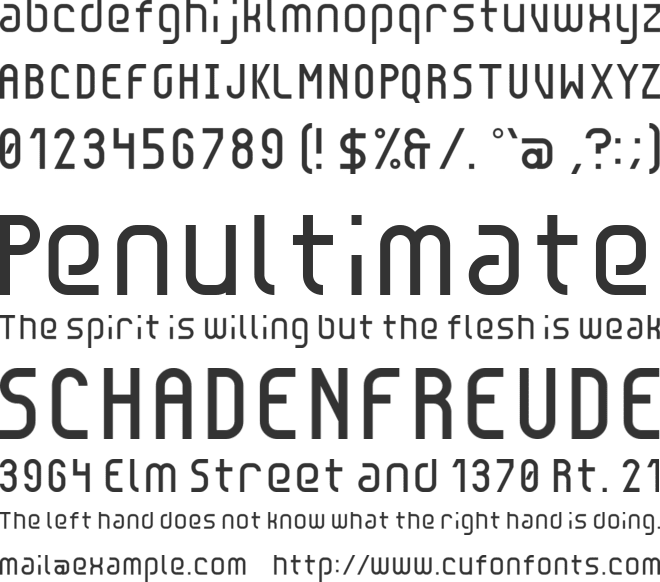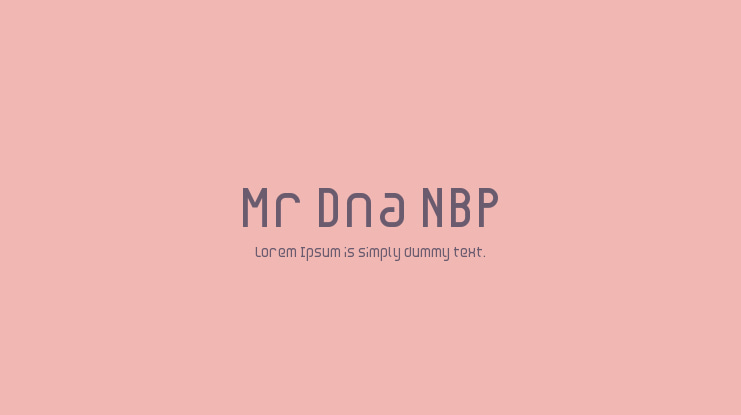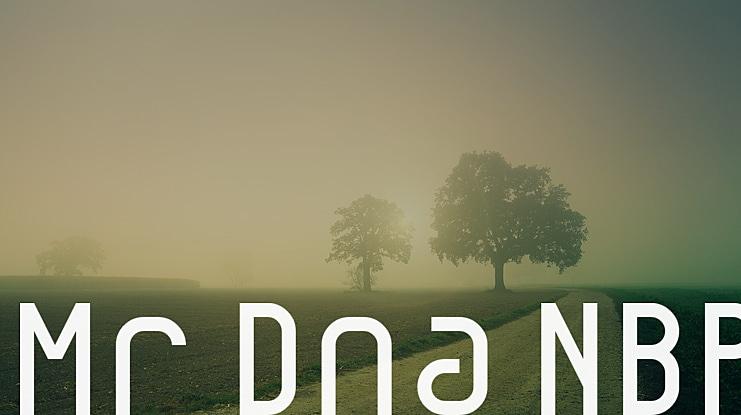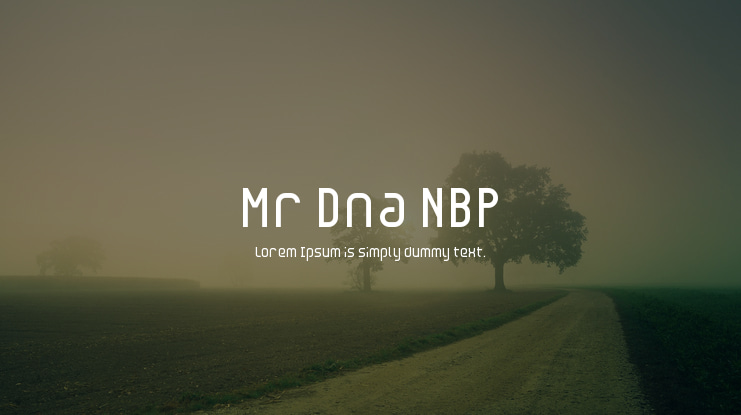
Mr Dna NBP Font Family
Nate Halley
A pair of DEVOlved fonts inspired by 1950s and 60s kitschy sci-fi. Mr Kamikaze is inspired by one faction's obsession with Outer Space. Mr Dna is inspired by the other faction's obsession with robots.